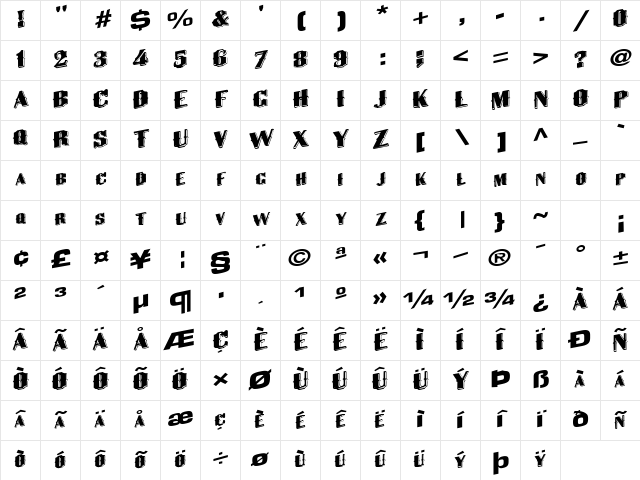
PostBoyText60 Regular
PostBoyText60 Family
Design Context for PostBoyText60
PostBoyText60 is a composed and adaptable typeface that performs quietly and consistently across a wide range of design contexts.